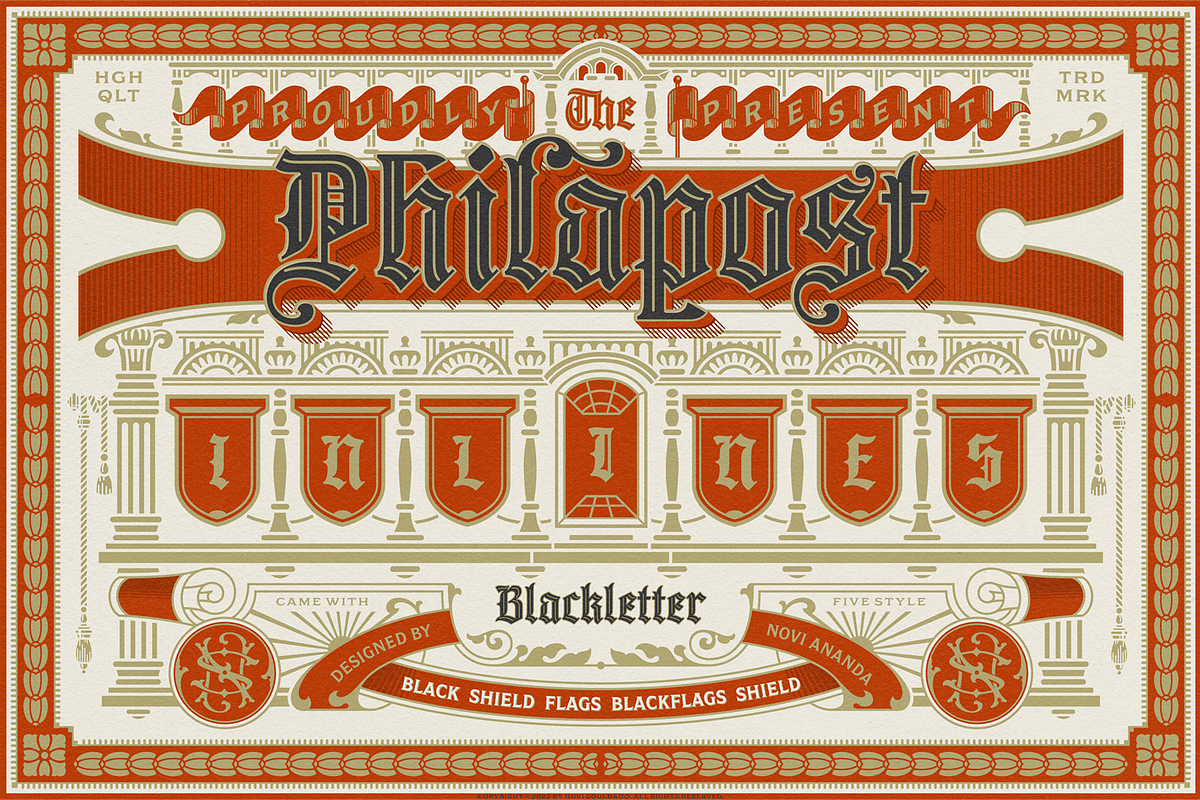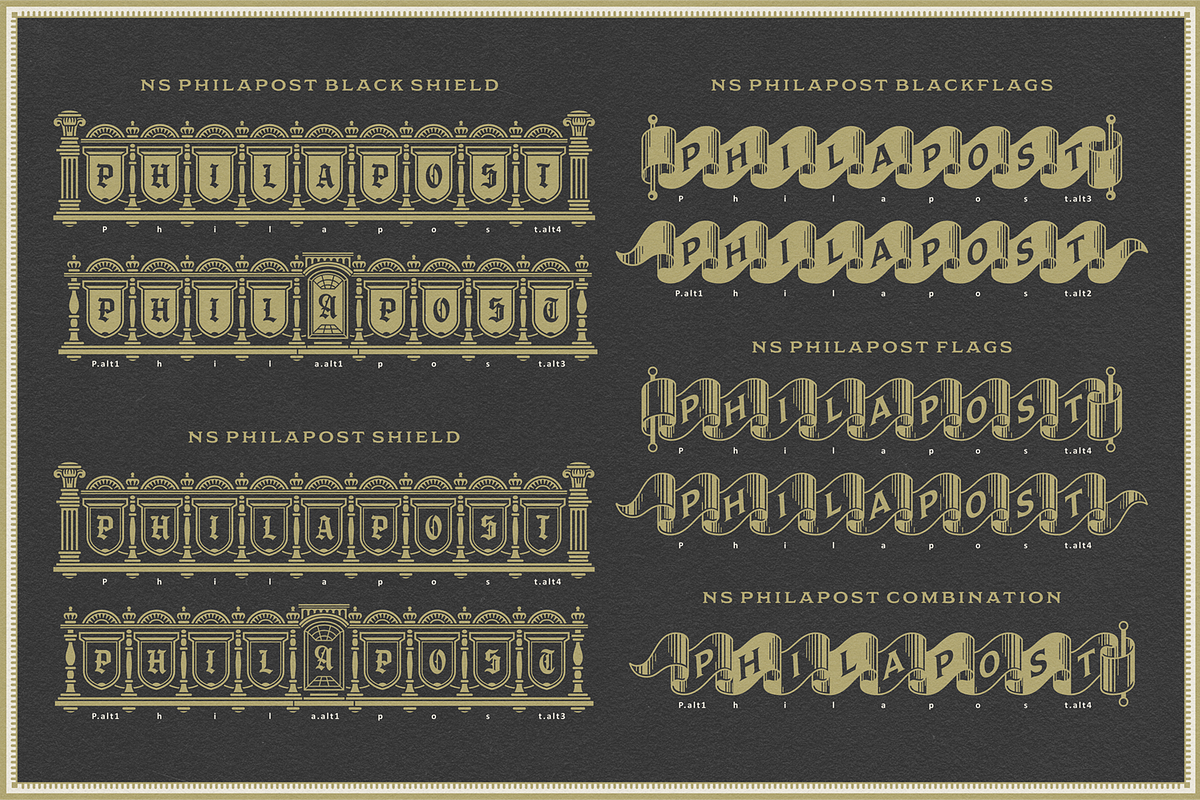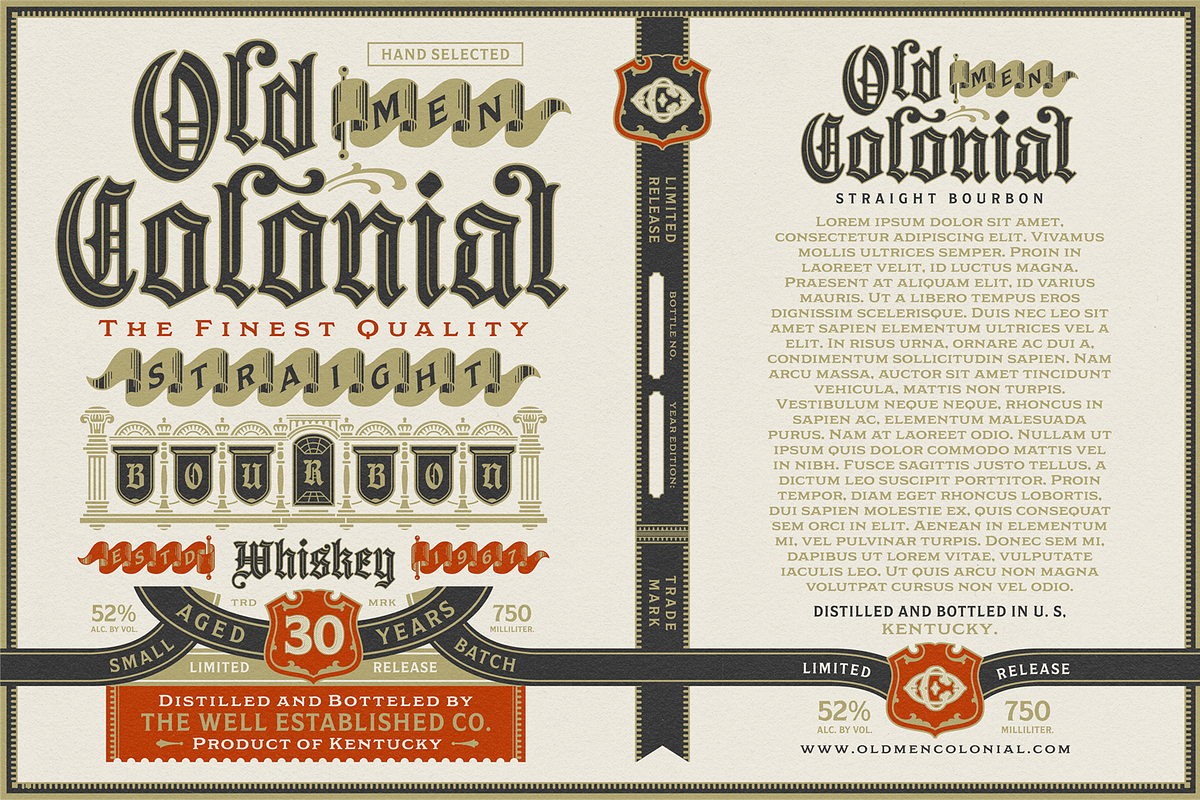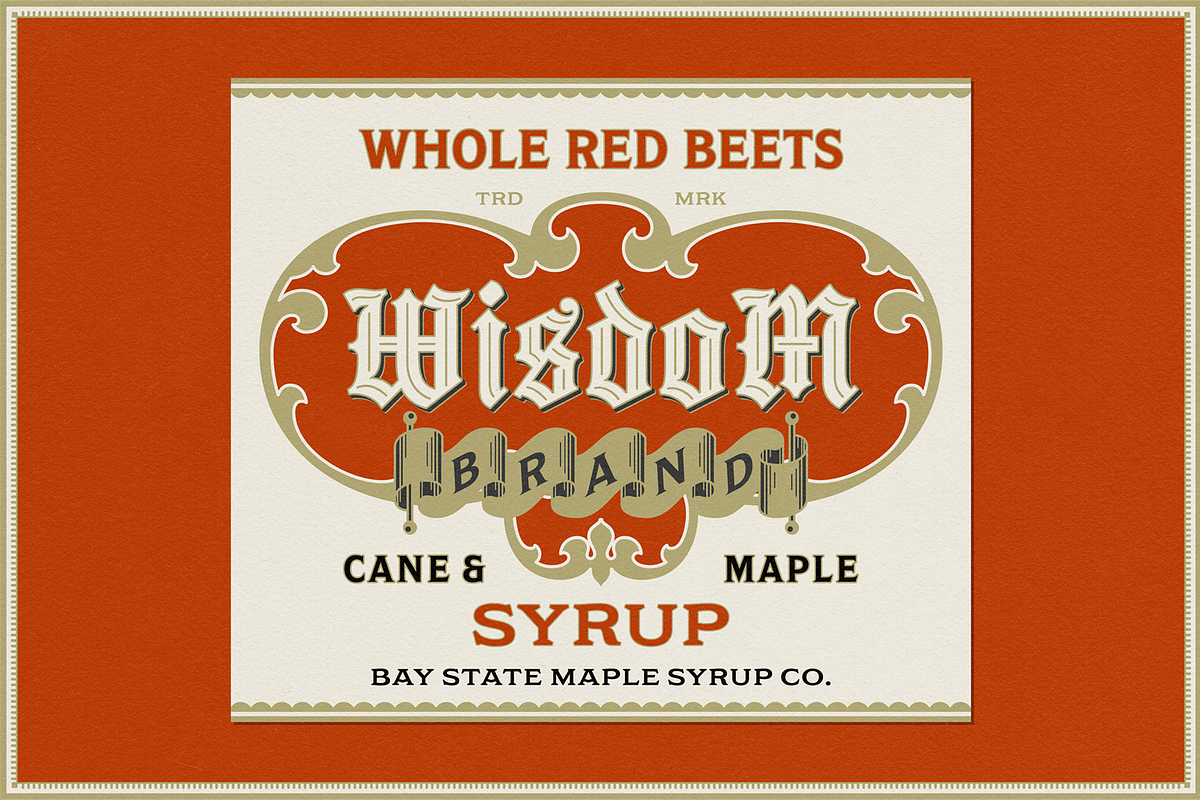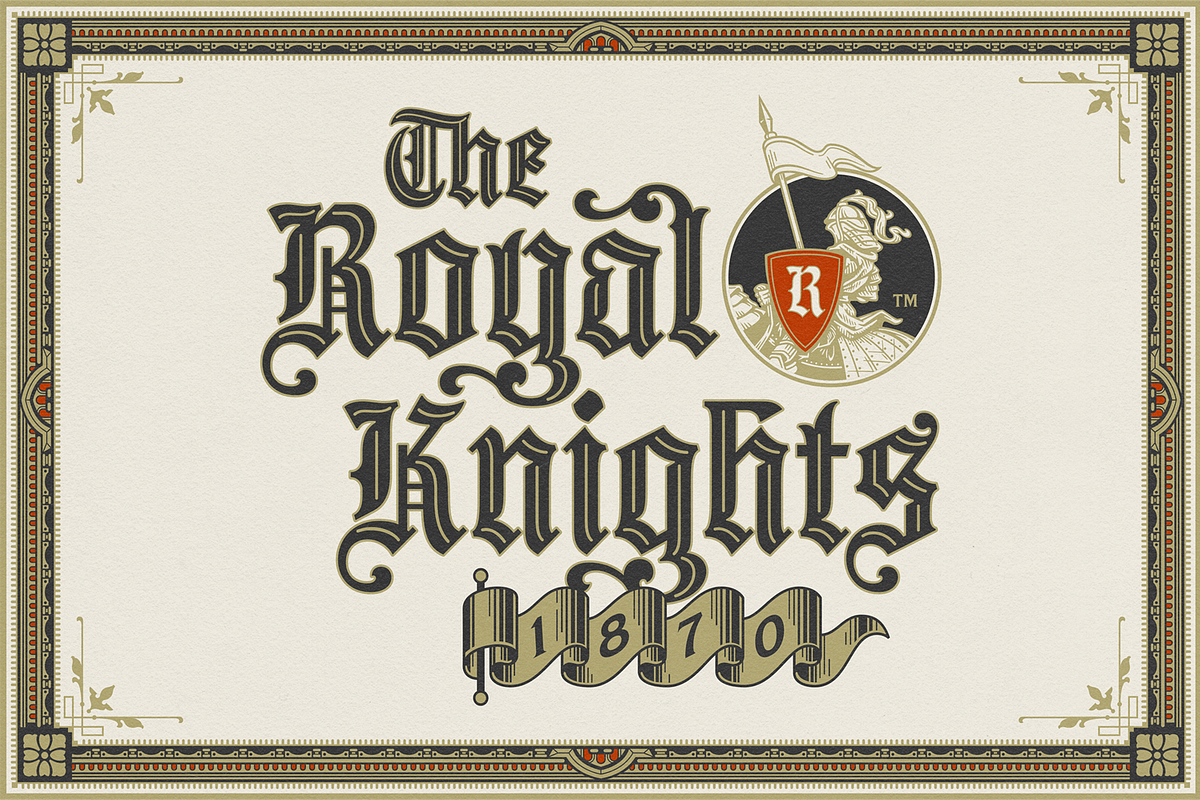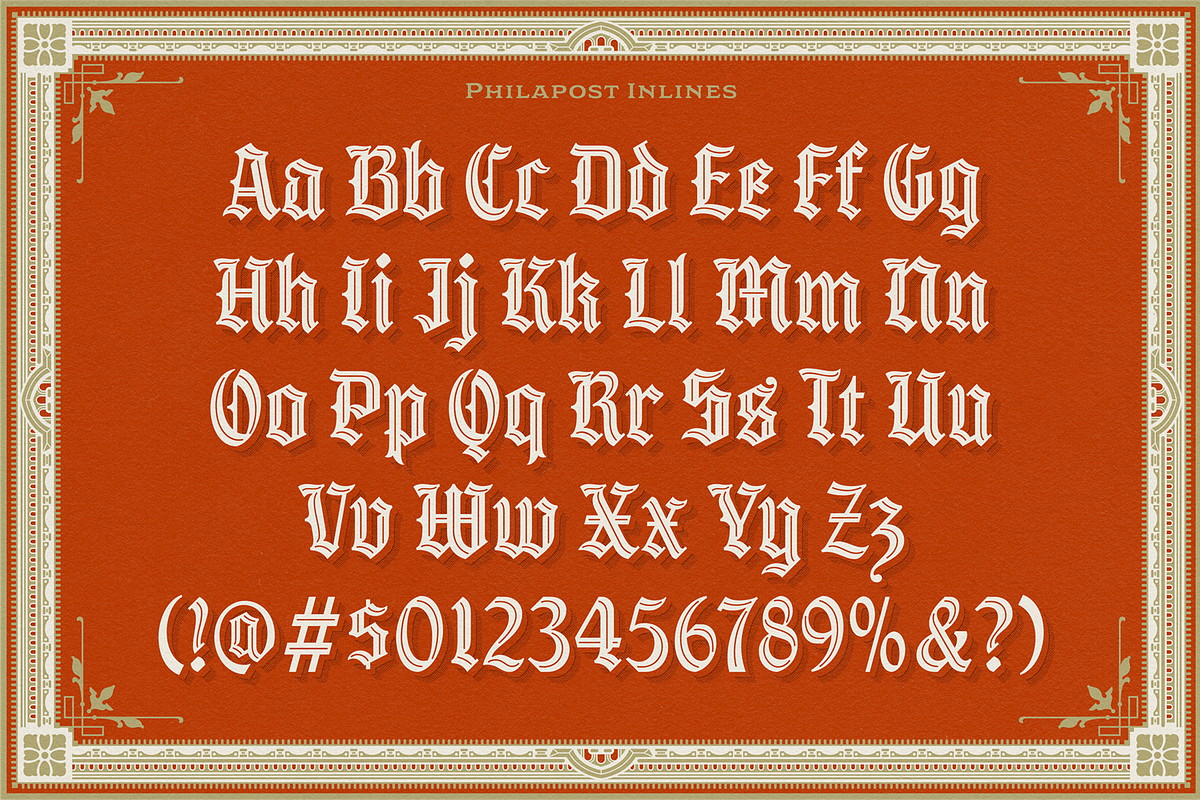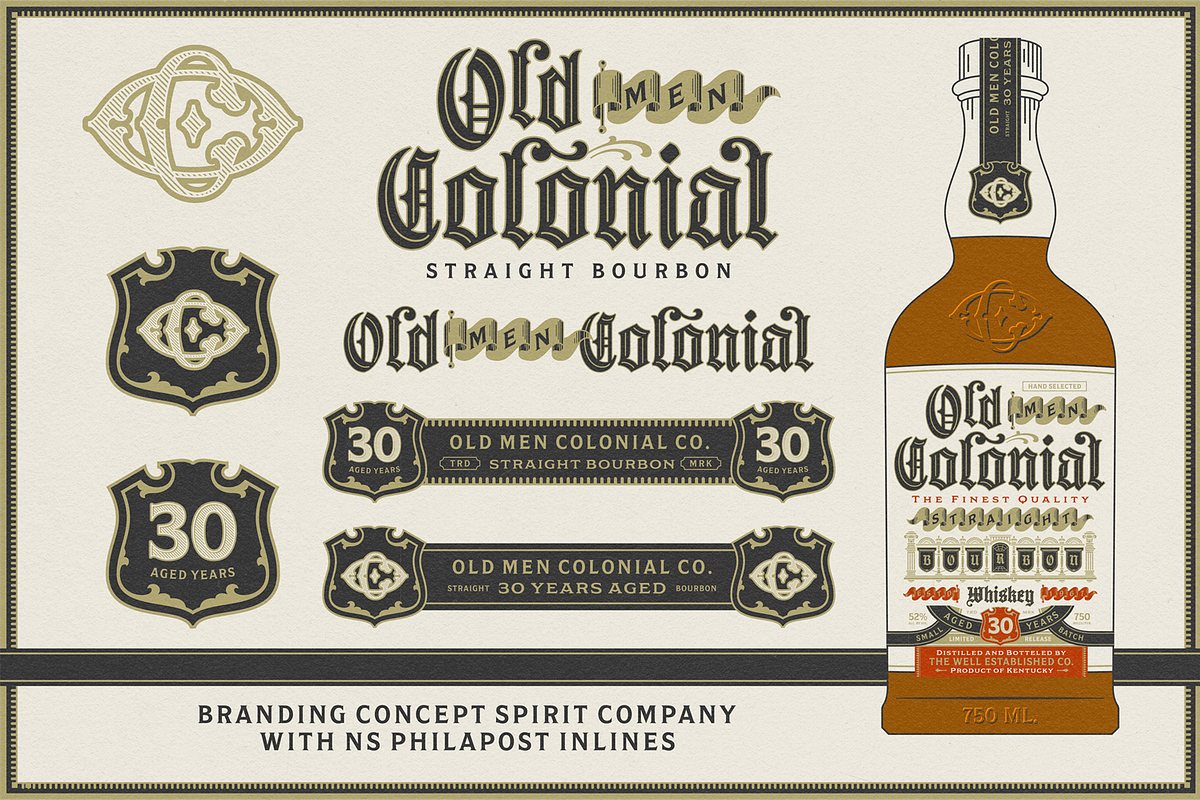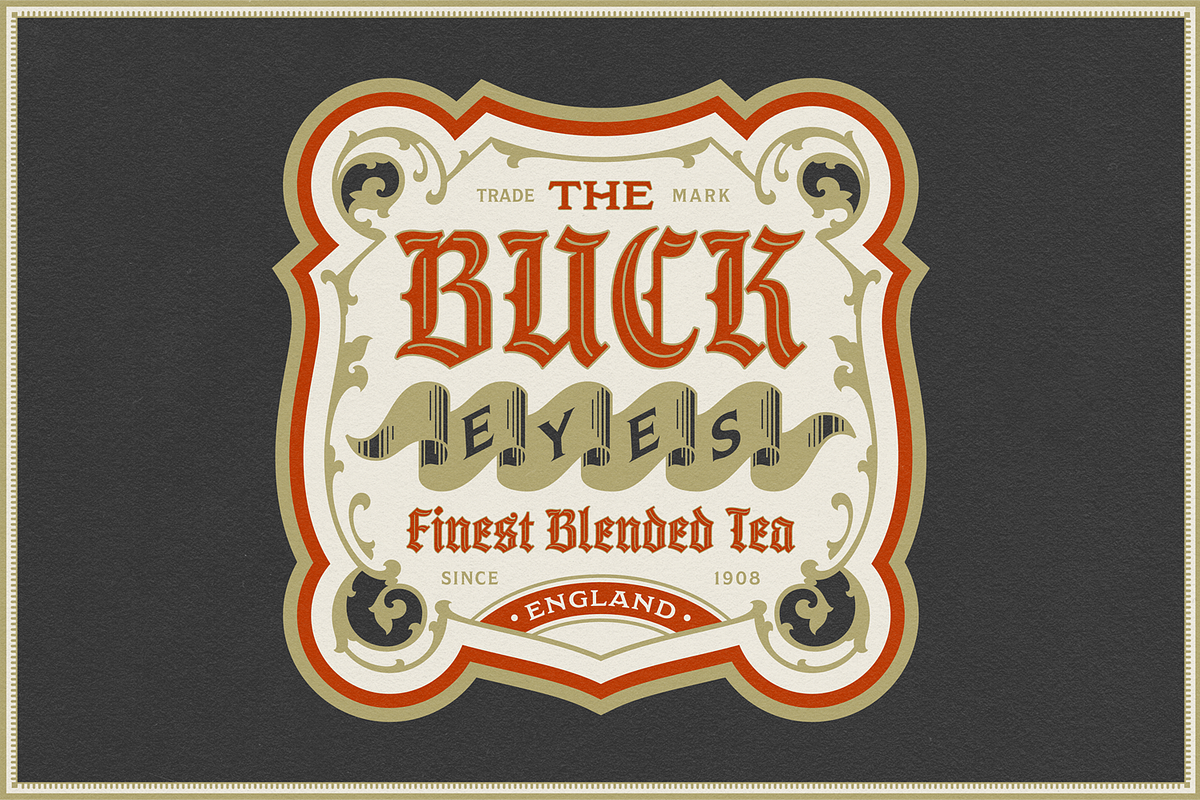
NS Philapost Inlines
Inspired by Blackletter, specifically Textura, existed in Western Europe in the mid-17th century. Philapost Inlines comes with 5 pairing styles, for ease of designing and other visual purposes. With open-type features such as various stylistic alternates and ligatures, Philapost was created for popular culture needs such as print and digital media, perfect for magazines, journals, titles, signage, merchandise, branding, logos and other key visuals.